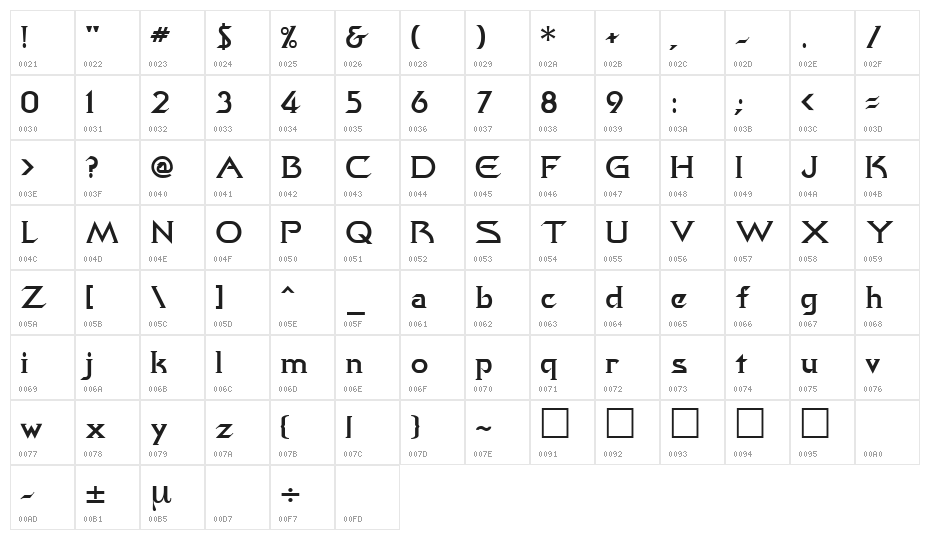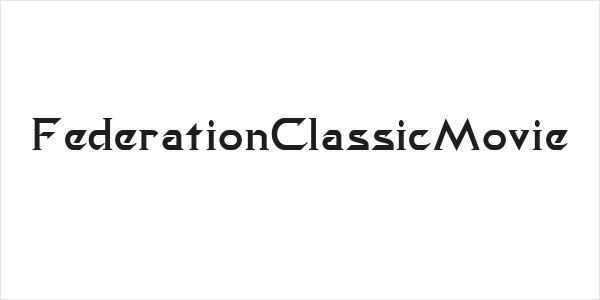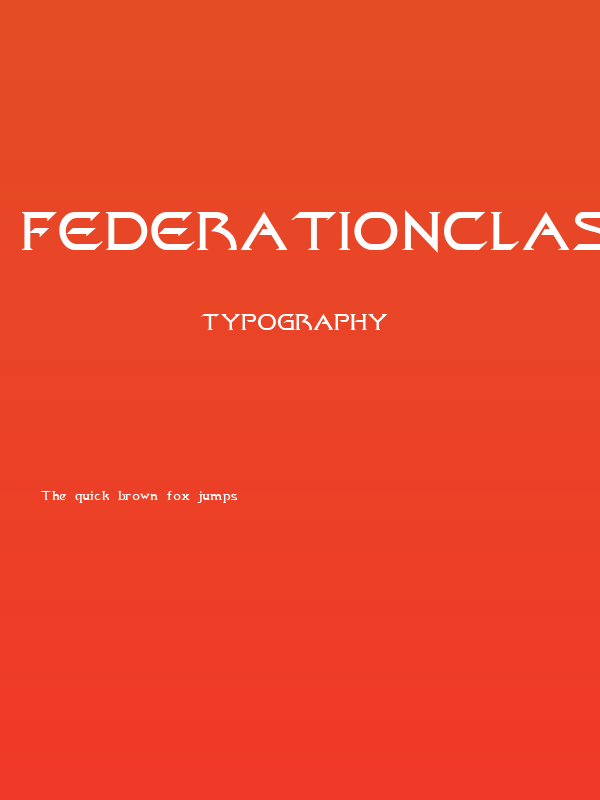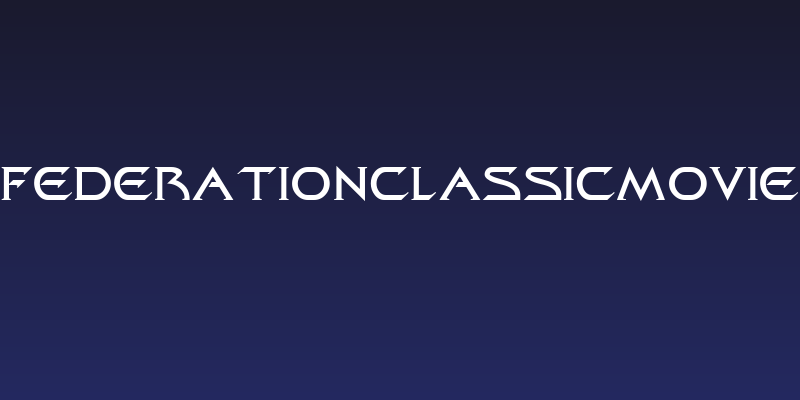
FederationClassicMovie Font
FederationClassicMovie Description
This font features a bold and striking design with sharp, angular edges and a futuristic aesthetic. The uppercase letters are particularly distinctive, with a geometric style that suggests movement and speed. The lowercase letters maintain a consistent design, offering a unique blend of modernity and readability. The numerals are clear and bold, matching the overall style of the font. Special characters are designed with the same attention to detail, ensuring they fit seamlessly with the rest of the typeface. This font is ideal for projects that require a strong, impactful visual presence.
| Proposed Projects | Ideal for sci-fi movie posters, video game titles, and futuristic branding. |